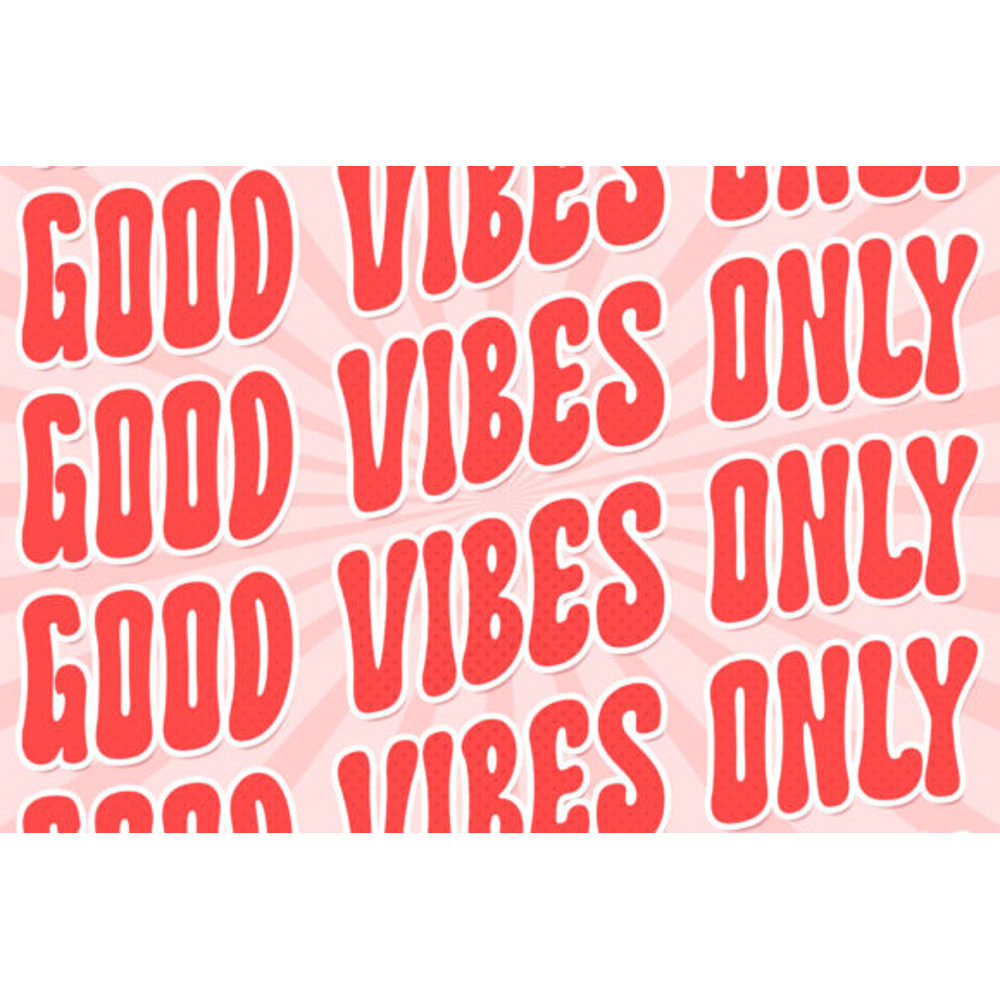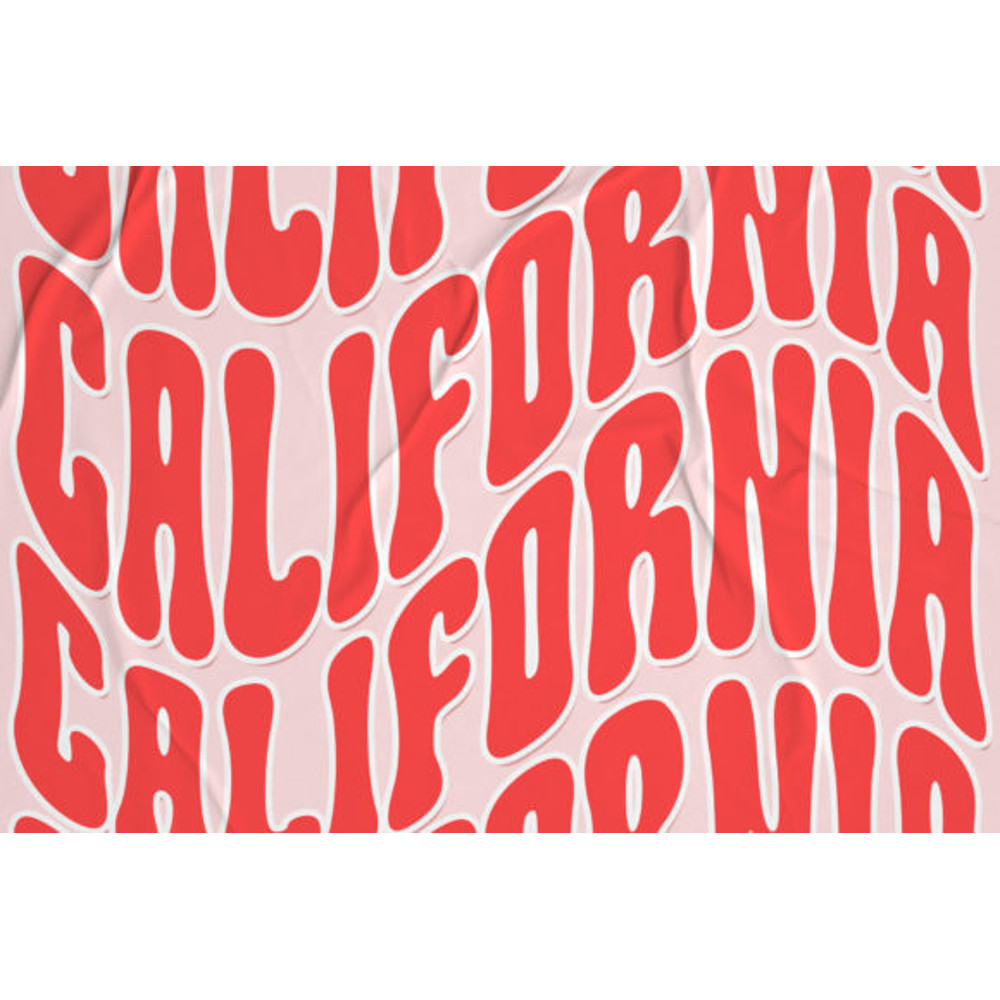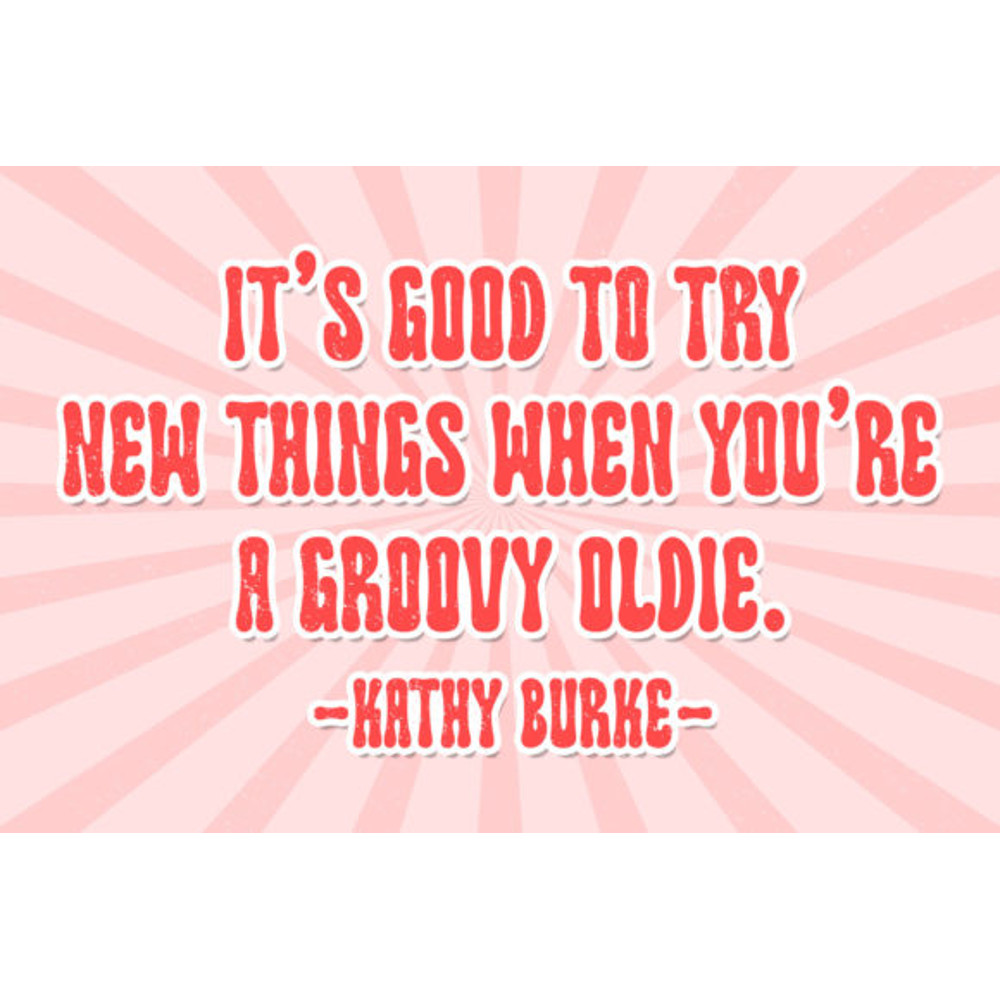
MONDAY GROOVY is a Groovy Display Font that contain all caps character and symbol. With PUA encoded which means you can access all of the glyphs and swashes with ease! This font is perfect for creating t-shirts, stickers, cover book, children book, social media post, invitation and much more!